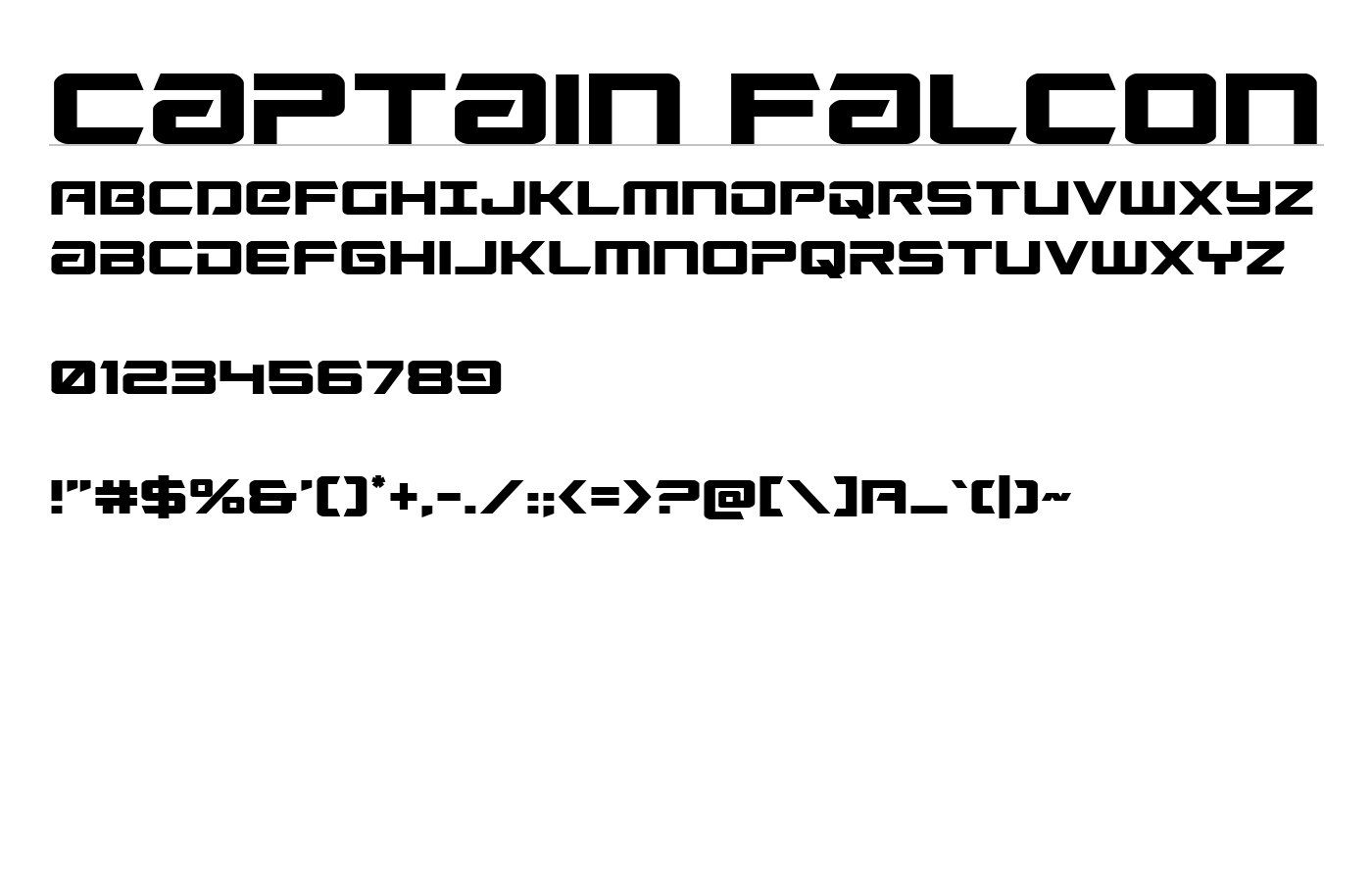
Captain Falcon is a bold, futuristic sans serif font with a strong geometric style and sharp, angular edges that give it a dynamic, tech-inspired look. Its high x-height and tight spacing create a compact, impactful presence, making it ideal for headlines, logos, and designs that need a modern, energetic vibe. This font suits brands and projects in gaming, technology, or sports where a powerful, commanding visual statement is desired.
Captain Falcon Font
About Captain Falcon Font